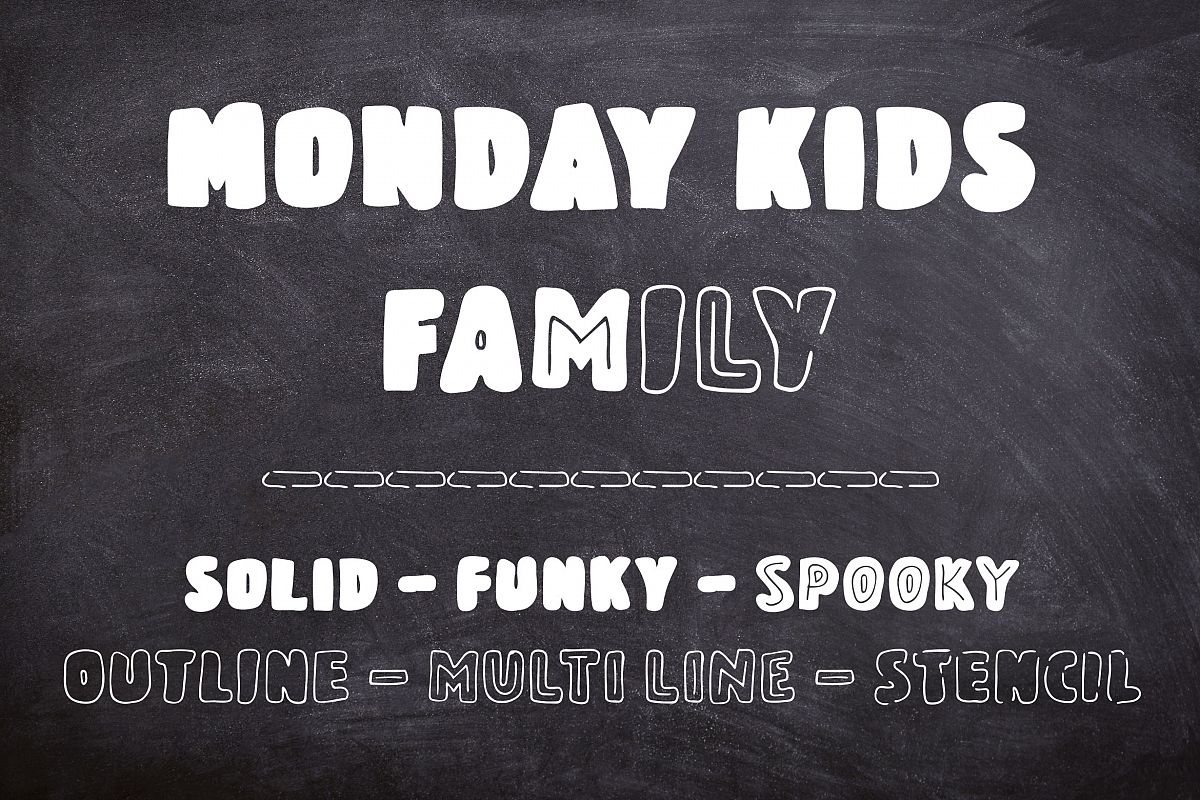
Monday Kids Family
Introducing you the Monday Kids Fonts
Family, Six Handwritten Bold All Caps Display Fonts Perfectly fit for
the kids designs, labeling, kids cloths, advertisements banners and much
more…
I Started with the monoline pen and finished with the six fonts, i
always wanted to make a font which will have a letters inside a letters
its finished on this font Monday Kids Multiline and Monday kids Spooky
fonts have double letters.
Included total six fonts in this package -:
- Monday Kids - Solid,
- Monday Kids - Funky,
- Monday Kids - Spooky,
- Monday Kids - Outline,
- Monday Kids - Multiline,
- Monday Kids - Stencil.